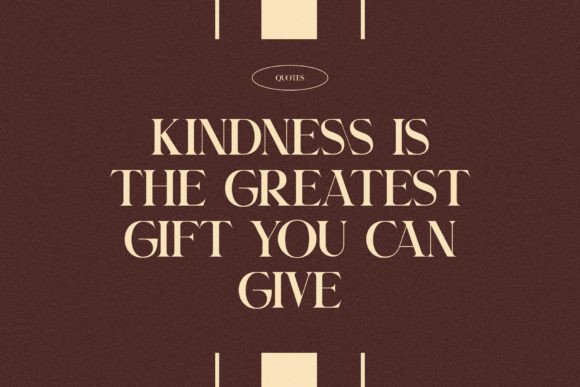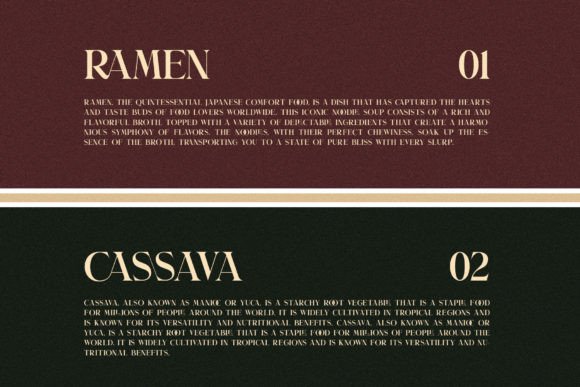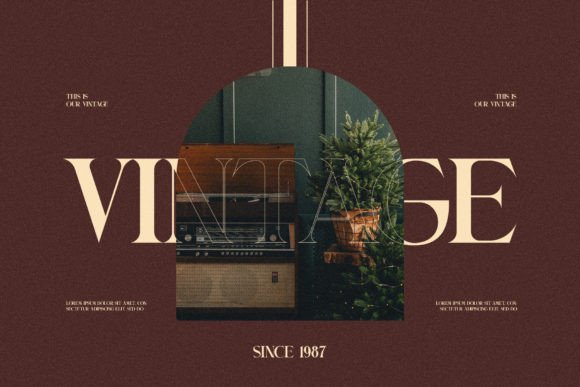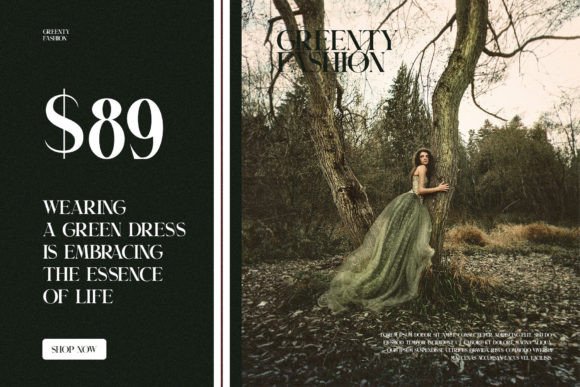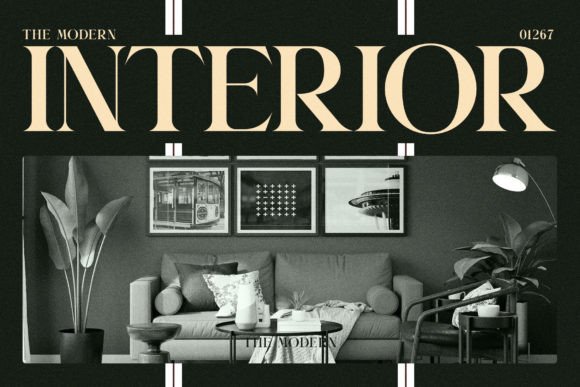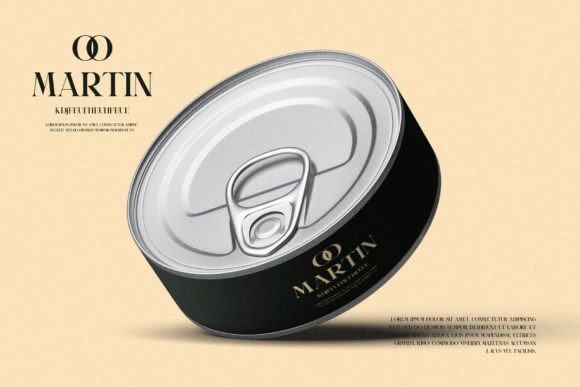
I still remember the countless hours I spent searching for the perfect font for a client’s wedding invitation project. The design brief called for something elegant, modern, and highly readable. I scoured the internet, tried out numerous fonts, but nothing seemed to fit the bill. That was until I stumbled upon Calldera Font. ✨
Calldera is a unique and very elegant font for branding and logo designs. Its elegant serif typeface combined with a classy and modern style makes it perfect for a wide range of projects, from branding and logos to wedding designs, social media posts, and more.
An Honest Review of Calldera Font
- ✨ Elegant serif typeface with a modern twist
- ✅ High level of readability, making it perfect for body text
- ✅ PUA encoded, allowing easy access to glyphs and ligatures
- ✅ Suitable for a wide range of projects, including branding, logos, wedding designs, and more
While Calldera Font is an excellent choice for many projects, there are a few minor quirks to be aware of: ⚠️
- 🤔 Some users may find the font’s elegance and sophistication limiting for very casual or playful projects
- ⚠️ As with any font, it’s essential to test it thoroughly for your specific use case to ensure it meets your needs
The Story Behind Calldera Font
Calldera Font was designed with the goal of creating a unique, elegant, and highly readable font for branding and logo designs. The designer aimed to combine classic serif elements with a modern twist, resulting in a font that’s both sophisticated and versatile.
Q: Is Calldera Font suitable for body text?
A: Yes, Calldera Font has a high level of readability, making it suitable for body text in many projects.